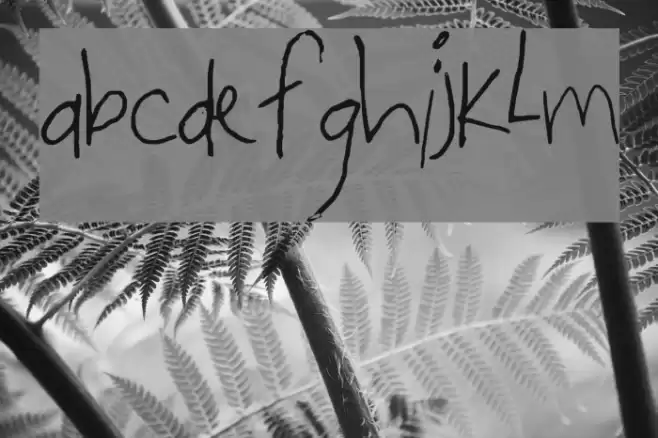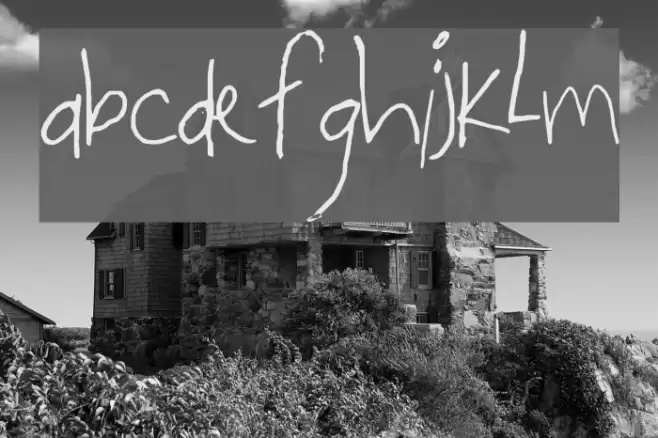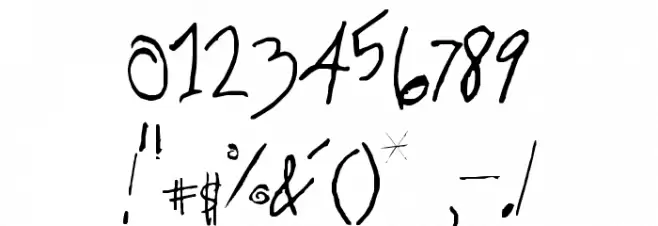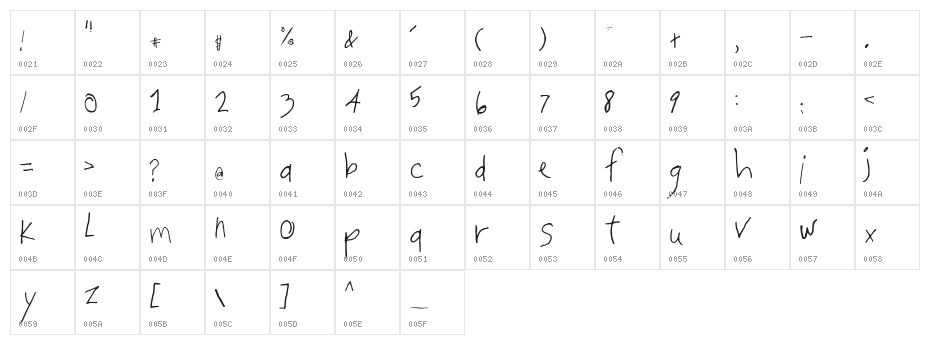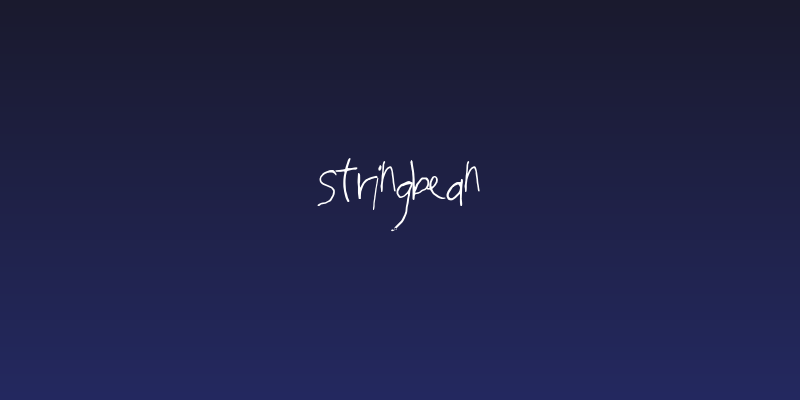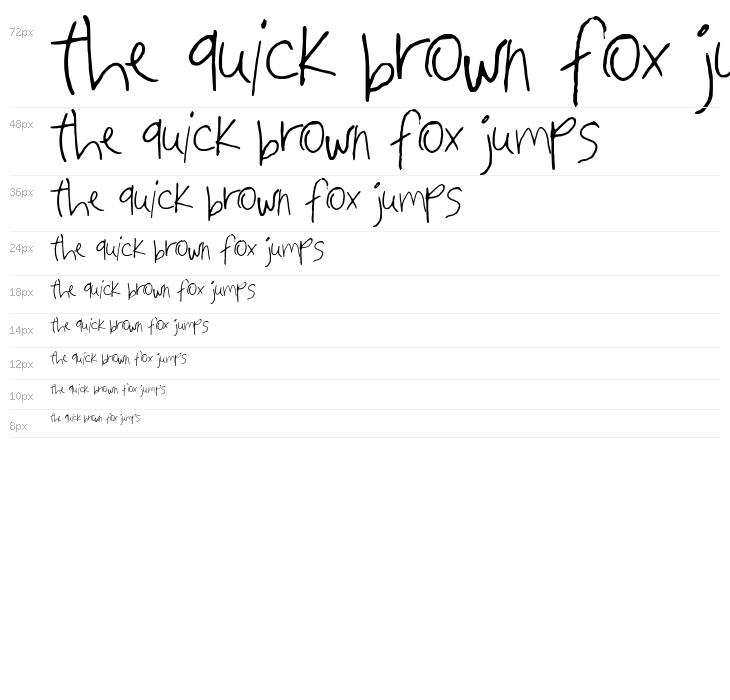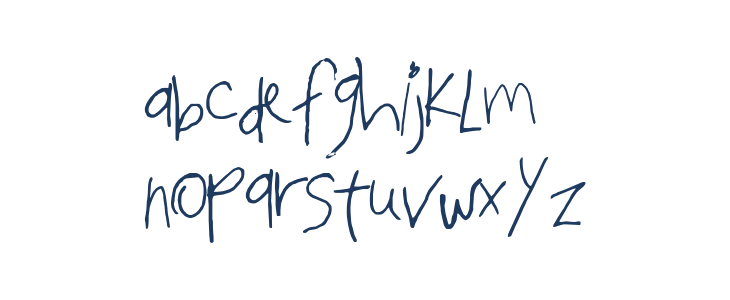
stringbean Font
stringbean Description
This font exudes a playful and informal style, characterized by its handwritten appearance. The letters are slightly irregular, with varying stroke thickness that adds a dynamic and personal touch. The uppercase and lowercase letters maintain a consistent flow, while the numerals and special characters complement the overall aesthetic. The font's casual and approachable nature makes it suitable for projects that require a personal or creative touch. Its unique style is perfect for conveying a sense of individuality and creativity.
A playful, handwritten font with irregular strokes and a personal touch from Uncategorized fonts.
- Proposed Projects: Ideal for greeting cards, personal blogs, creative projects, and informal branding.
- Overall Style: Casual, Creative
- Use Case: Headlines, Informal text, Creative projects